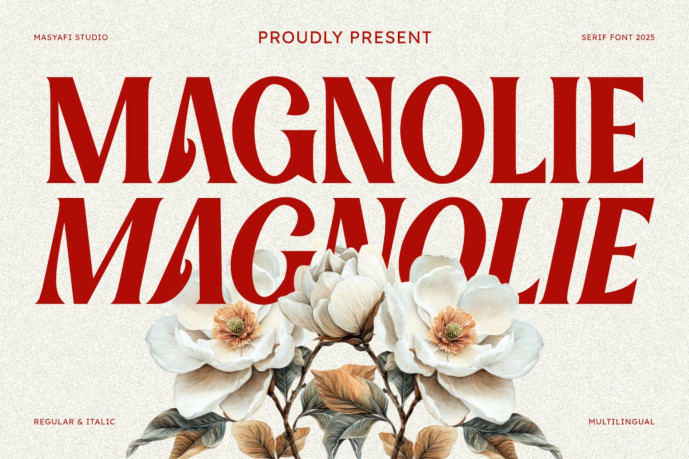
Magnolie Classic Serif Font
Designer: Masyafistudio
Magnolie Classic Serif Font is a stylish serif font that blends classic elegance with modern sharp details. Available in Regular and Italic, this typeface is perfect for branding, editorial design, invitations, posters, and high-end packaging. With its refined shapes and timeless charm, Magnolie will bring sophistication to any creative project.
• Regular & Italic styles
• Uppercase & lowercase
• Numerals & punctuation
• Multilingual support